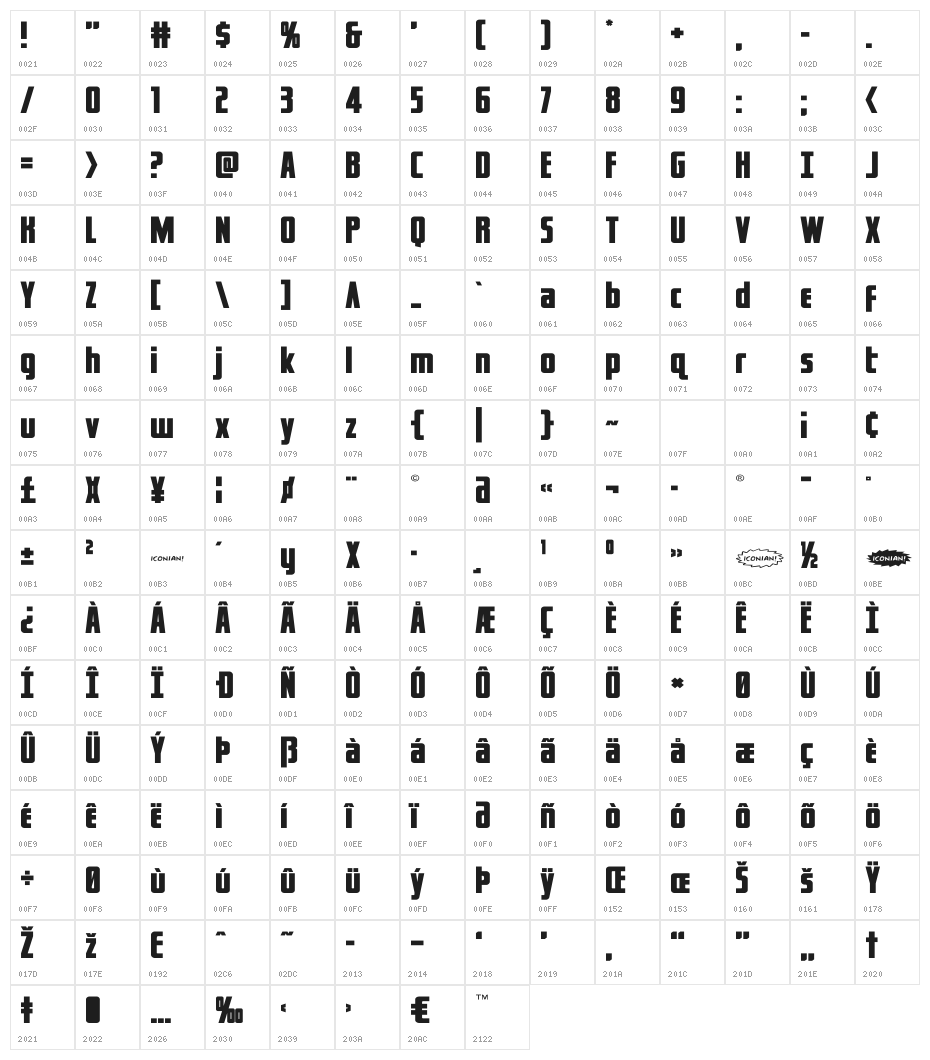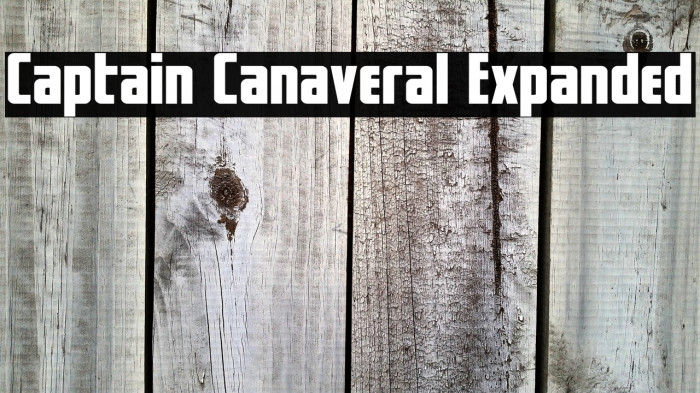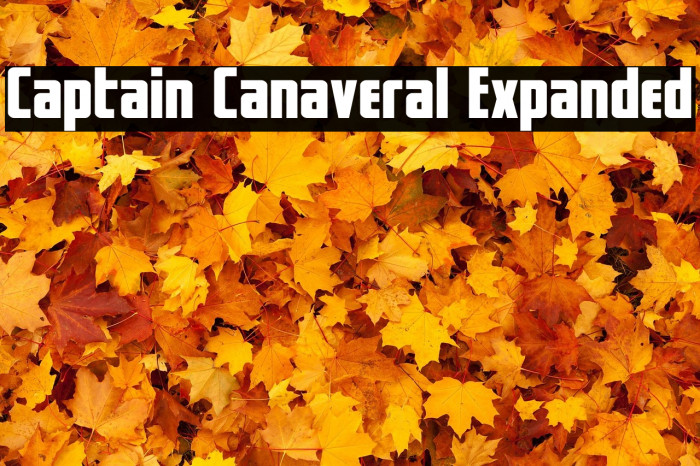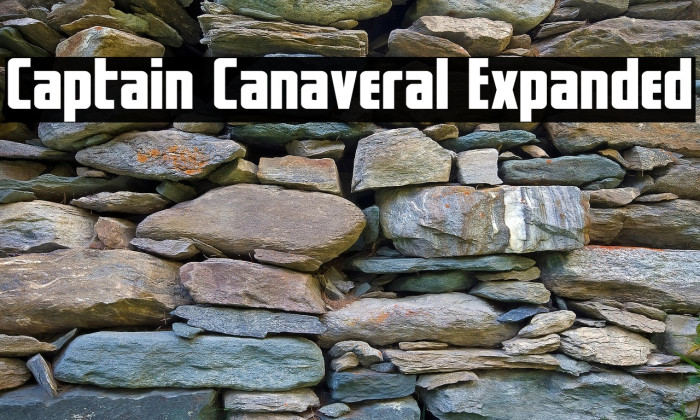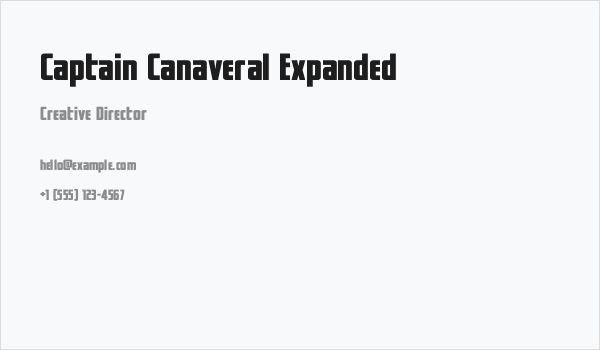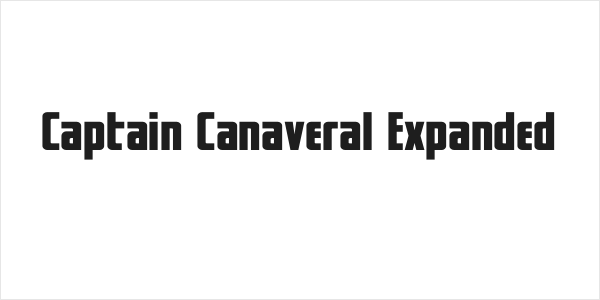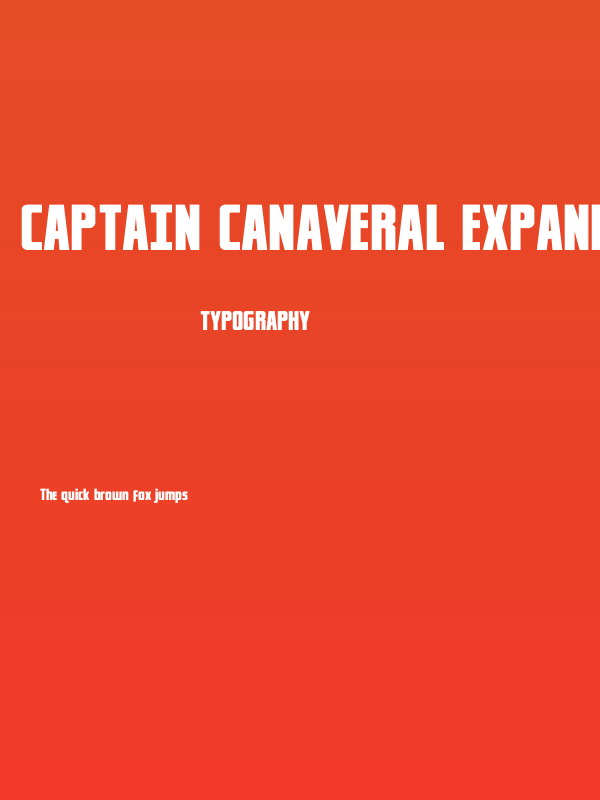
Captain Canaveral Expanded Font
Captain Canaveral Expanded Description
This font features a bold and striking design with a distinctly modern and geometric style. The characters are wide and have a strong presence, making them ideal for attention-grabbing headlines and titles. The uppercase letters are particularly prominent, with a uniform height and consistent stroke width that conveys a sense of stability and confidence. The lowercase letters maintain the same boldness, ensuring readability while preserving the overall aesthetic. Numbers and special characters are equally robust, designed to complement the alphabetic characters seamlessly. The font's expanded width and consistent character spacing contribute to its bold appearance, making it suitable for impactful designs.
| Proposed Projects | This font is perfect for projects that require a strong visual impact, such as posters, banners, branding materials, and digital advertisements. |